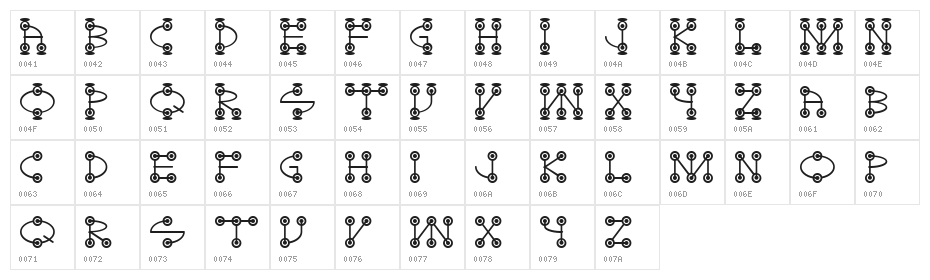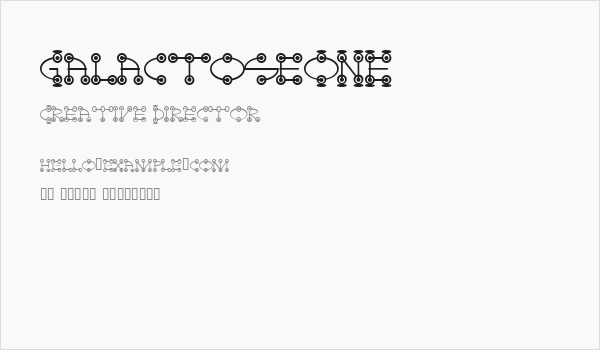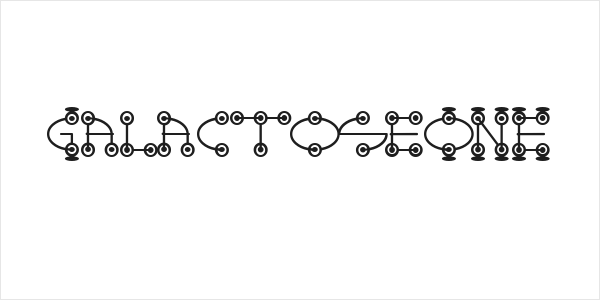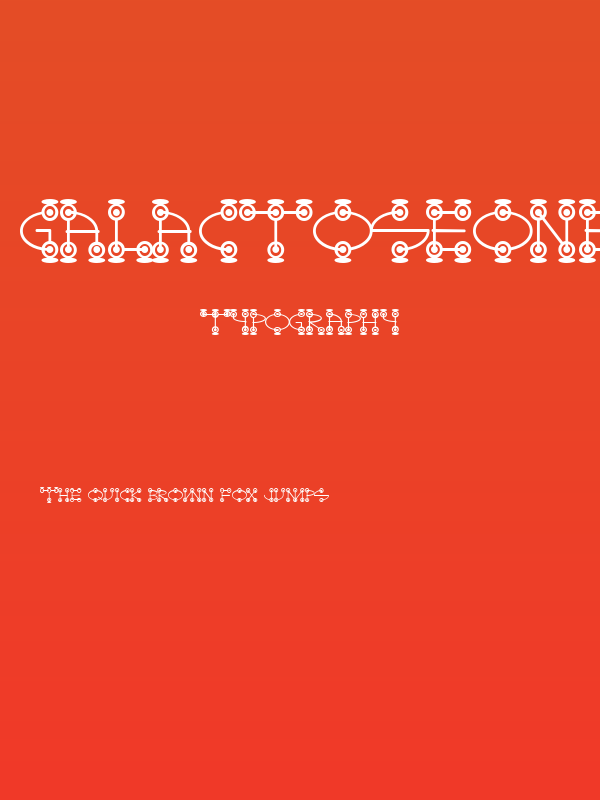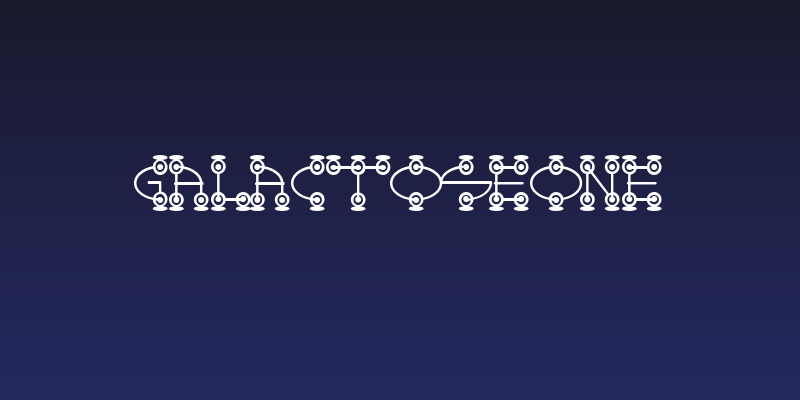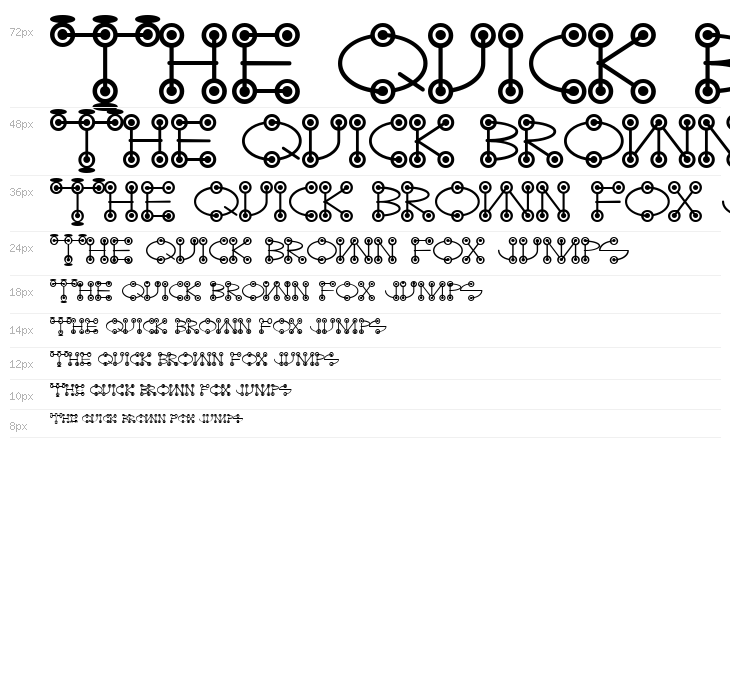
GalactoseONE Font
GalactoseONE Description
This font features a unique and futuristic design, characterized by its interconnected circular elements and linear strokes. Each letter is composed of a series of circles connected by straight lines, creating a circuit-like appearance. The uppercase and lowercase letters maintain this consistent style, offering a cohesive look across the alphabet. The numbers and special characters are similarly designed, ensuring uniformity. The font's geometric and modern aesthetic makes it stand out, ideal for projects that require a tech-savvy or avant-garde feel.
| Proposed Projects | Ideal for tech-related branding, sci-fi book covers, digital art projects, and innovative product packaging. |